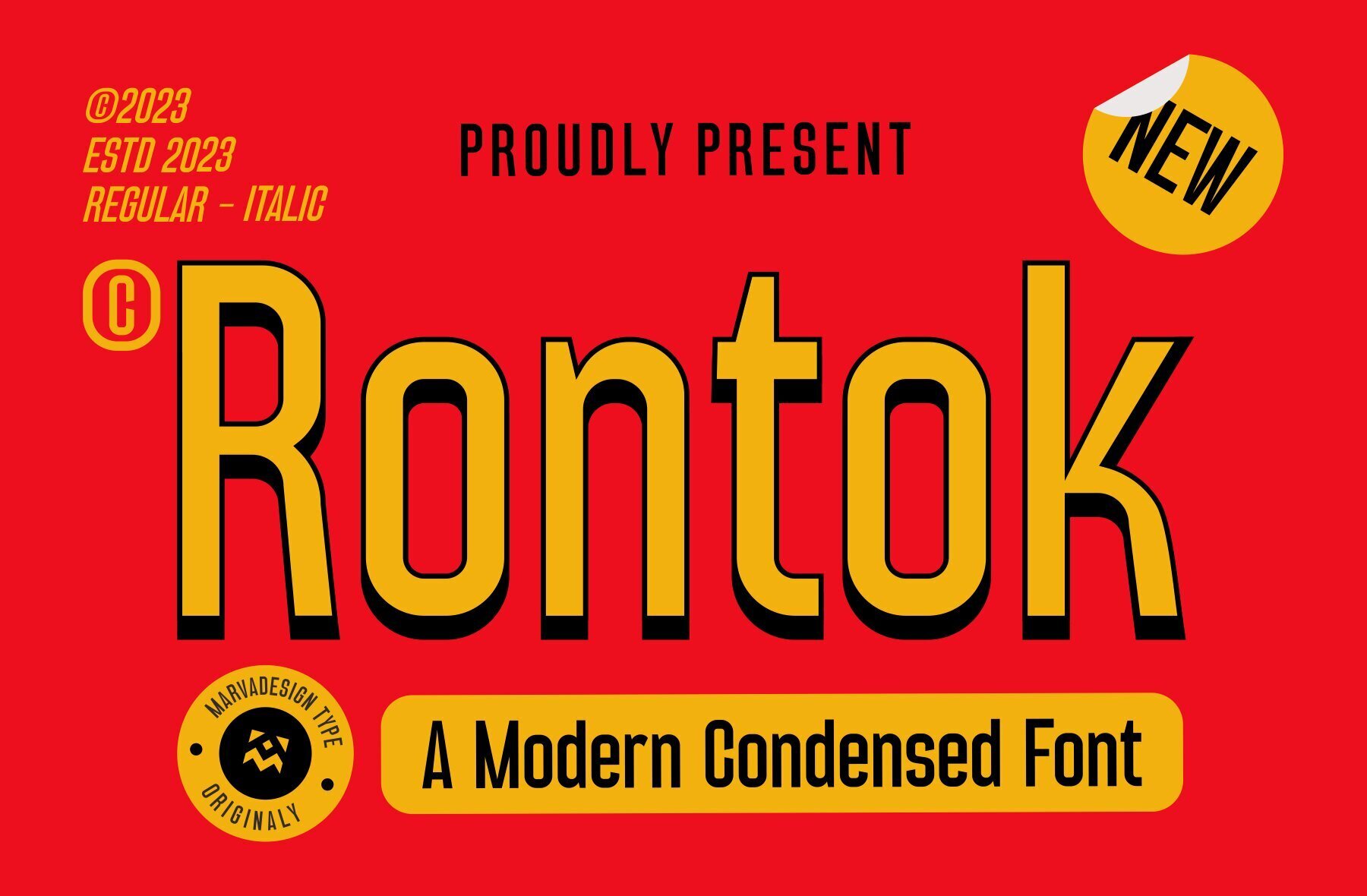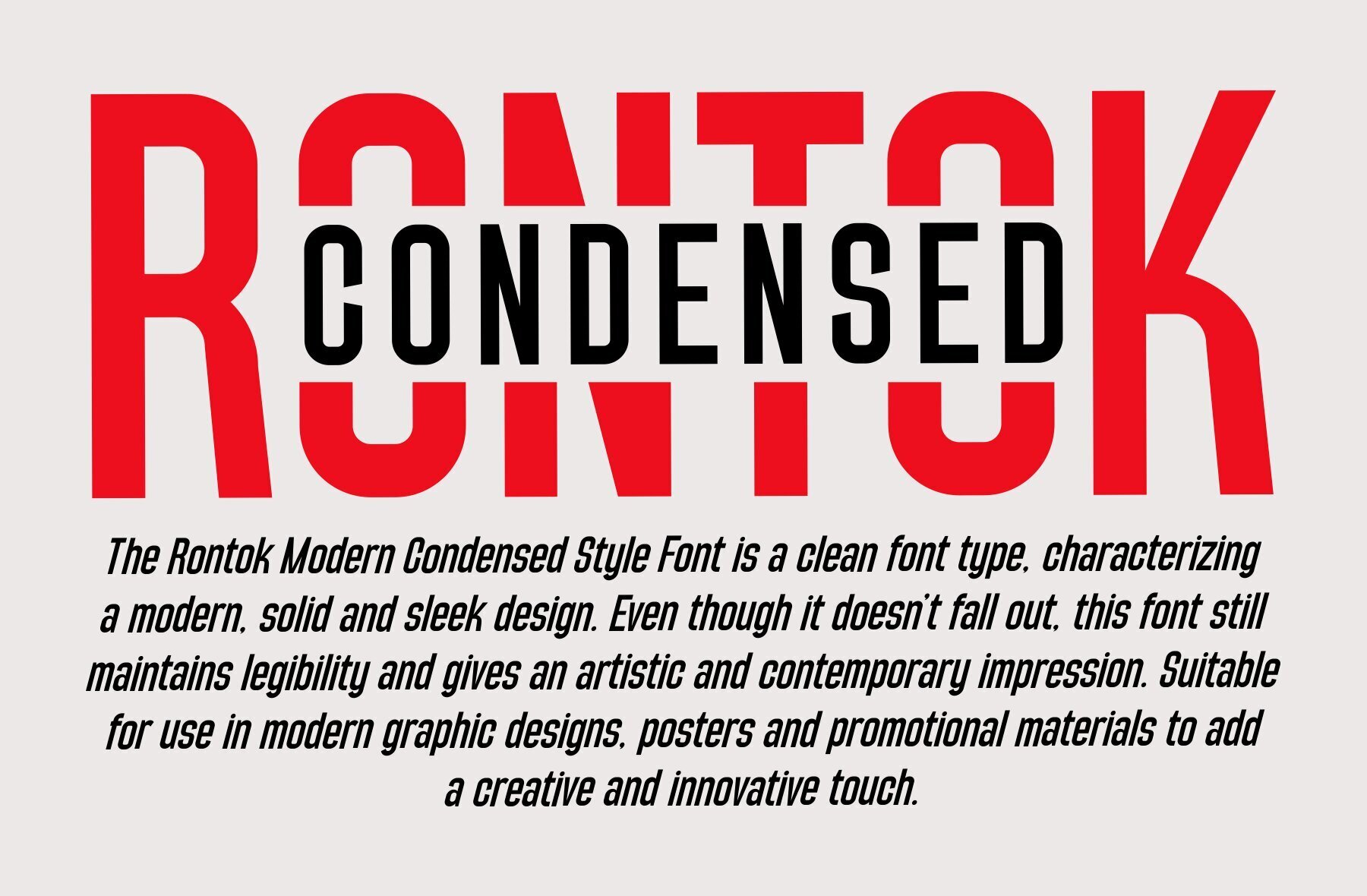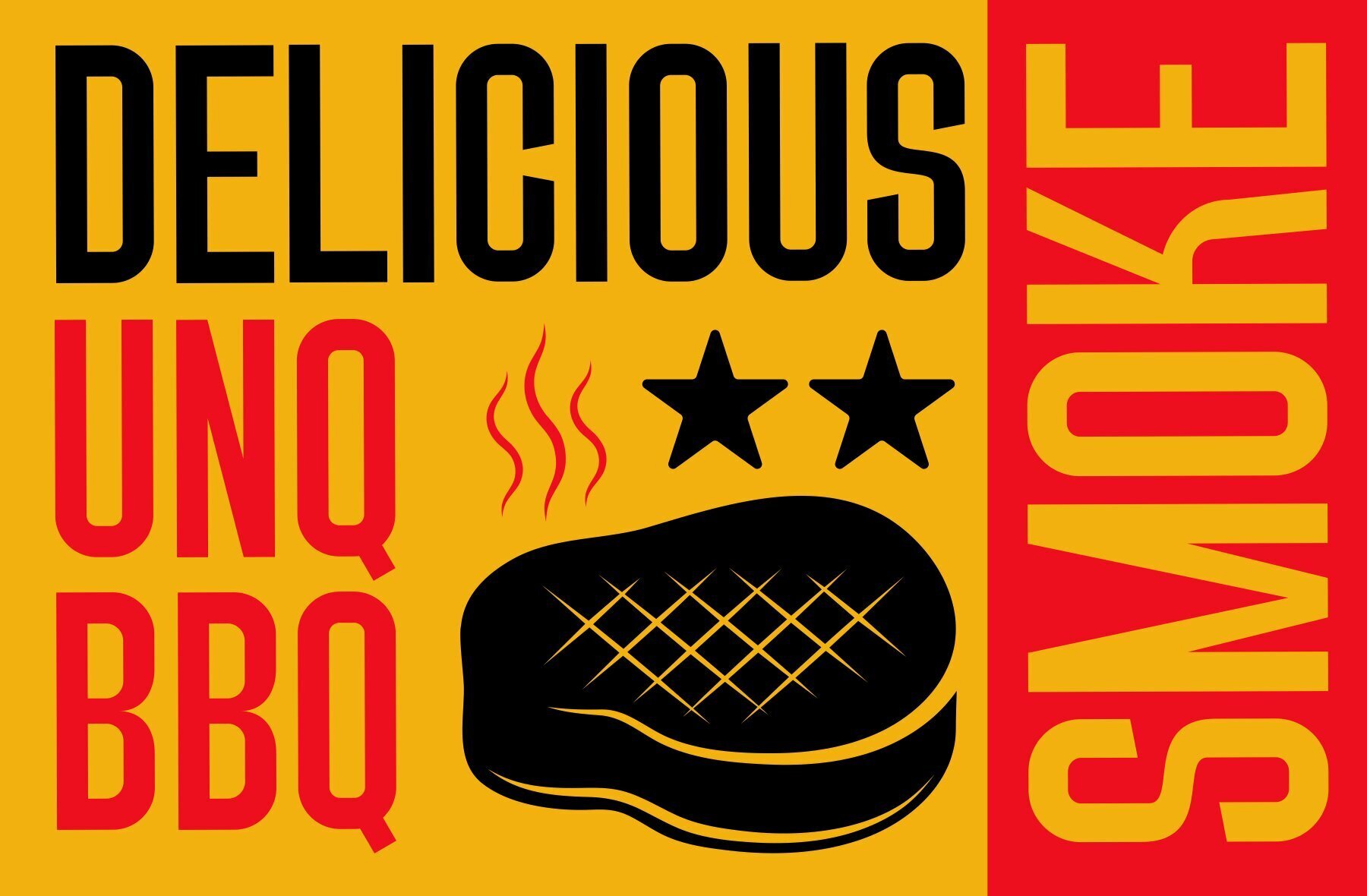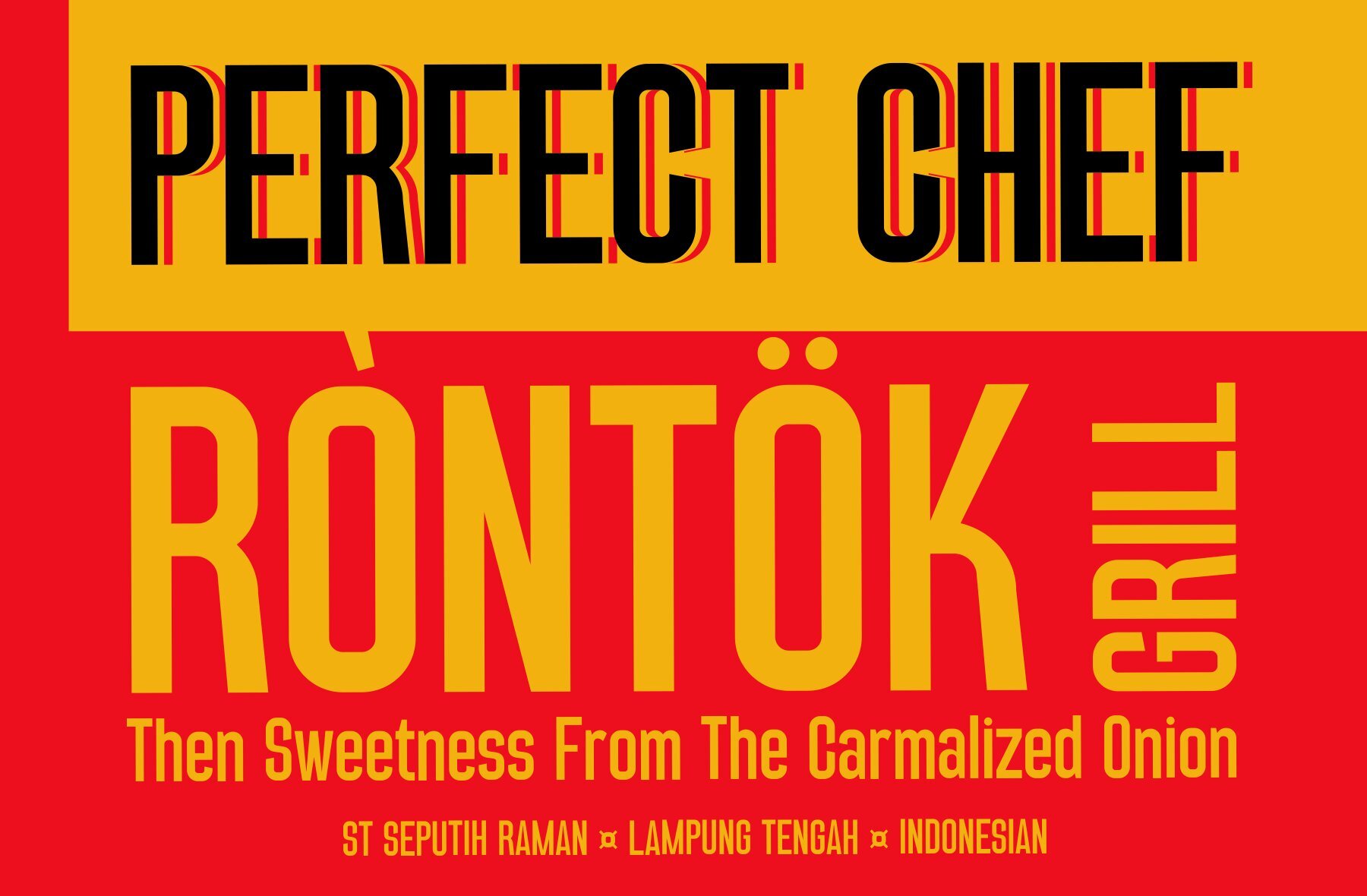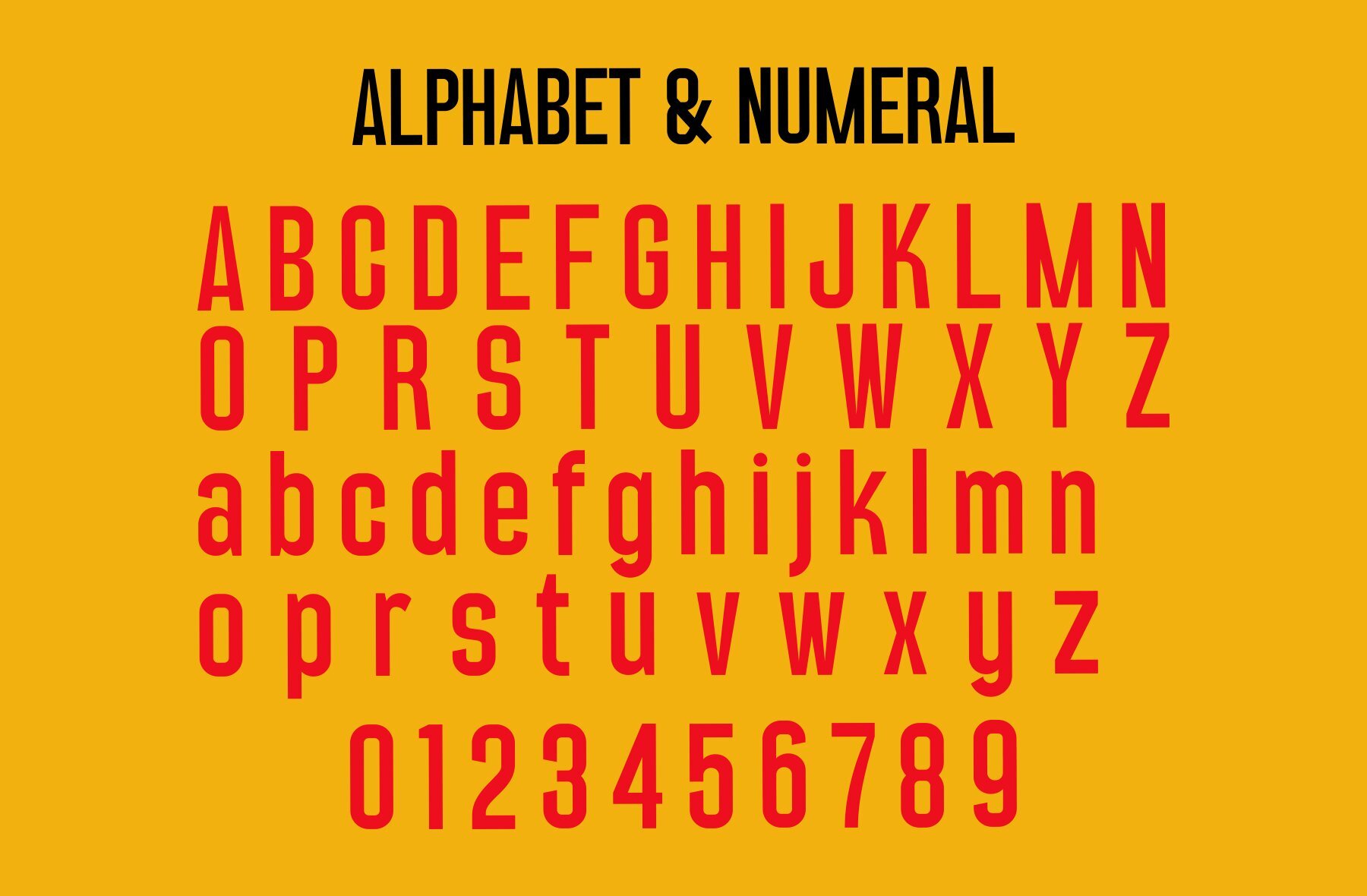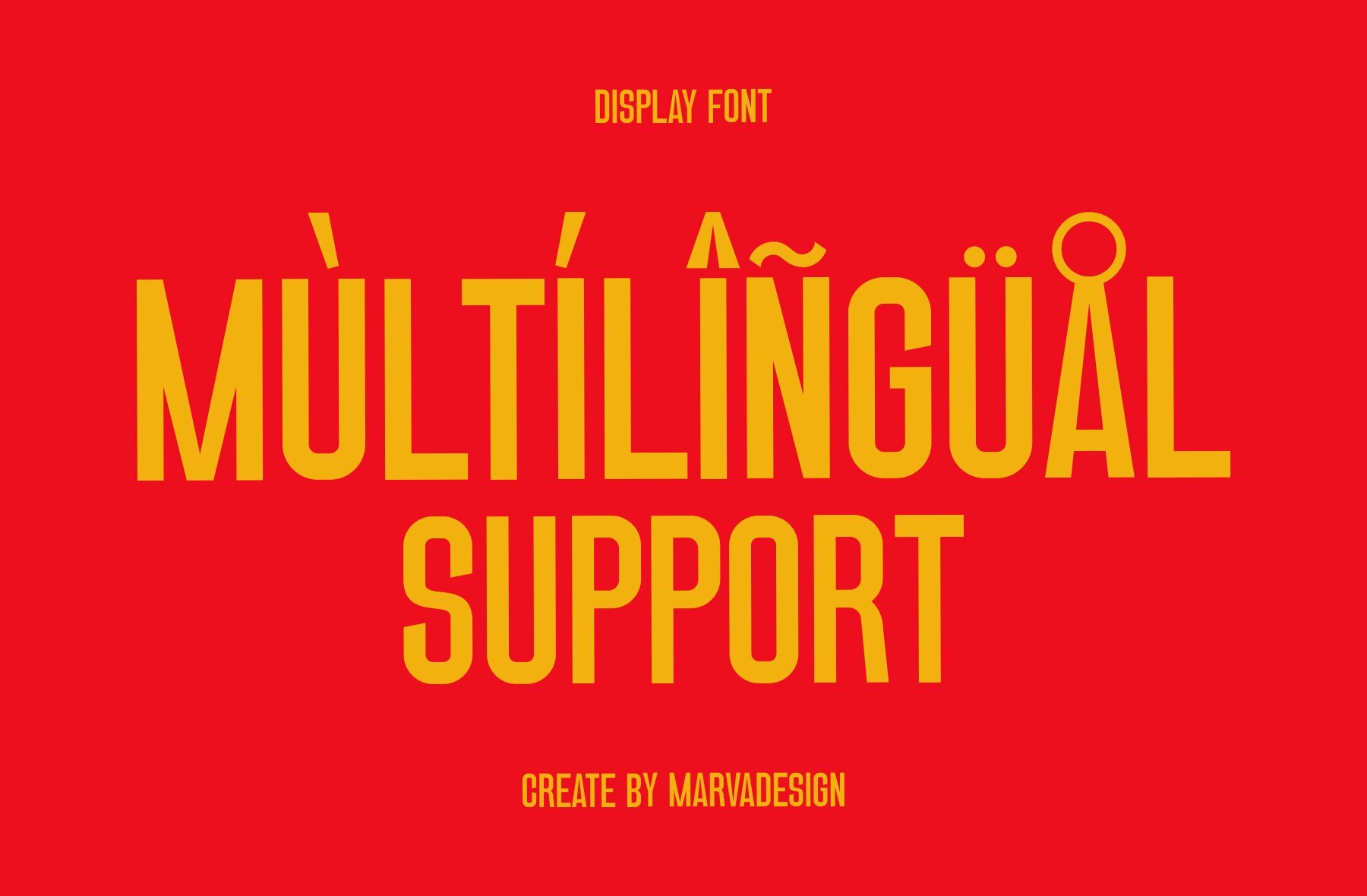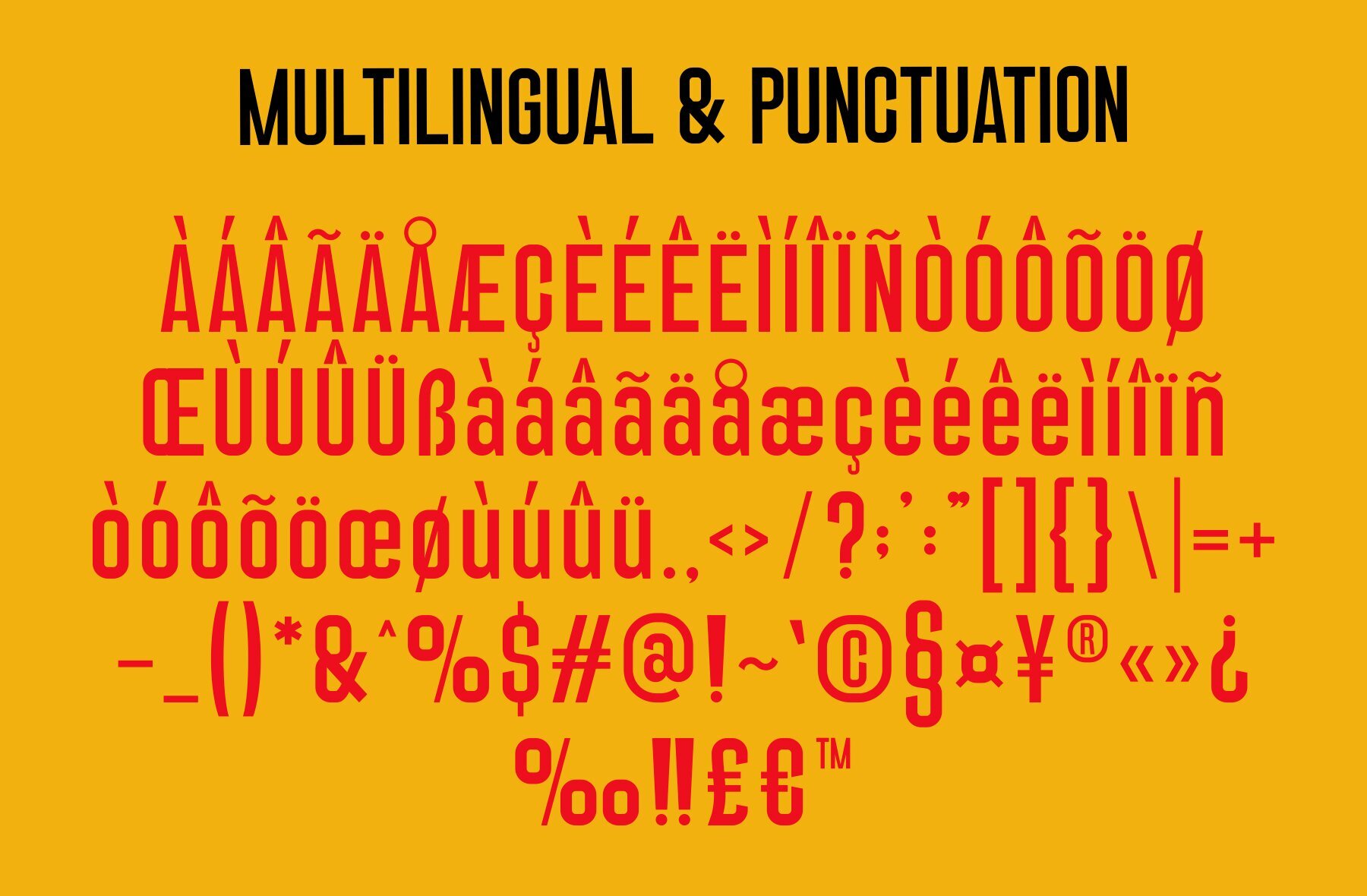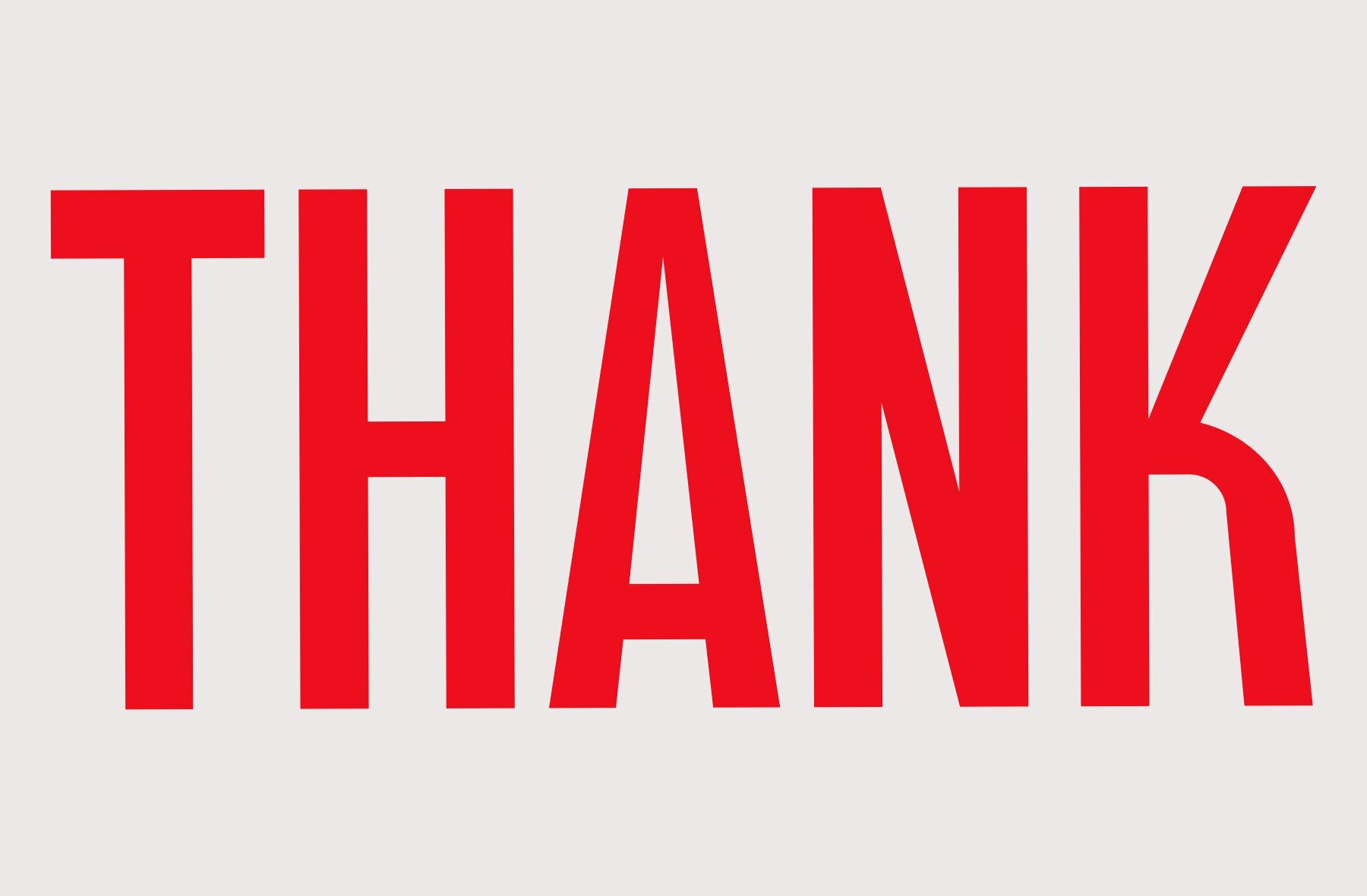
Rontok Font
The Rontok Font stands out as a bold and authentic display typeface, perfect for a variety of projects including logos, template designs, and products. With its modern aesthetic, Rontok is versatile and impactful in numerous branding contexts.Rontok: Bold Modern Sans Condensed Font